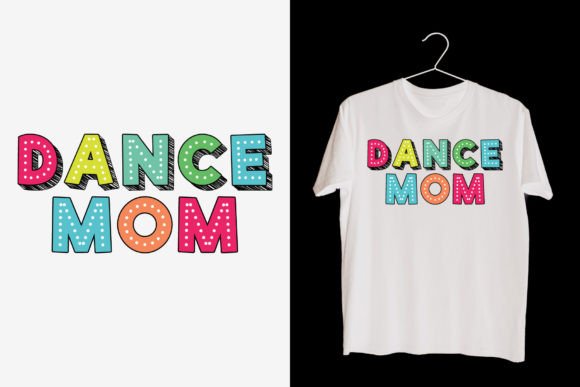
Dotted Rainbow Font
Introducing “Dotted Rainbow Font” – a fun and playful color font that brings joy and fun to your projects. It’s the perfect font for cute-themed projects. It works great for creating cool designs that scream for attention. It’s ideal for anything ranging from t-shirts, book designs, restaurant menus, blog writing, greeting cards, stickers, or anything that needs a casual touch. Fall in love with its incredibly cool style, and use it to create lovely designs!